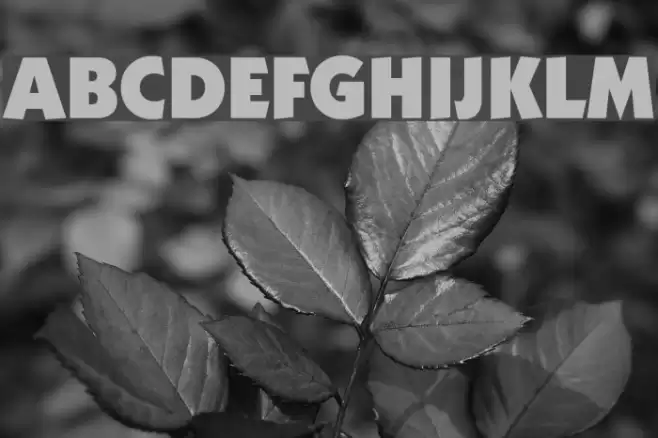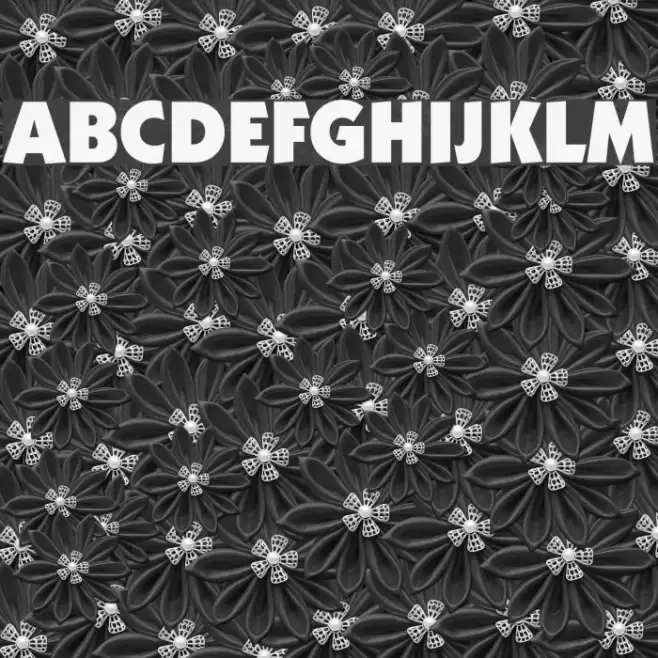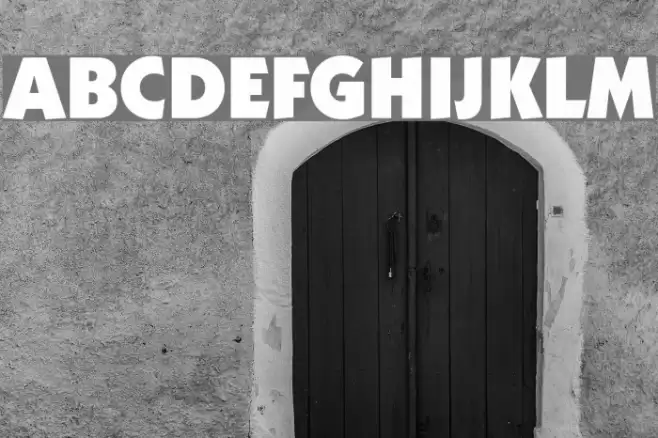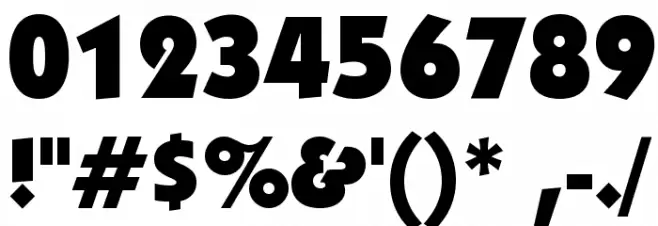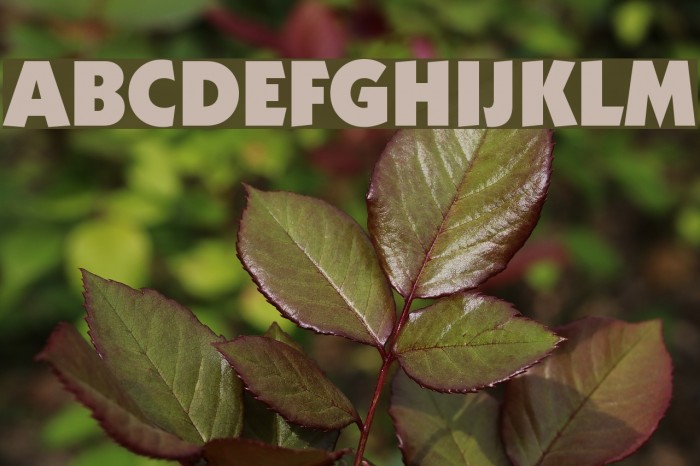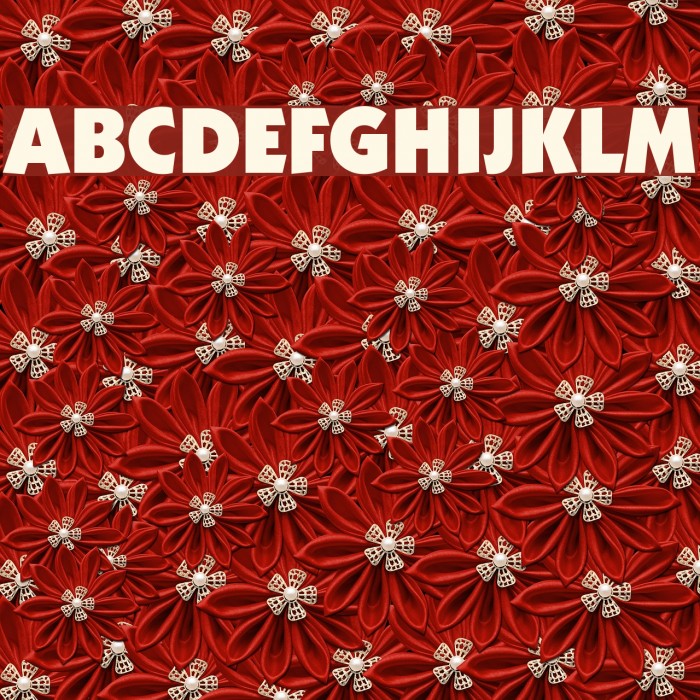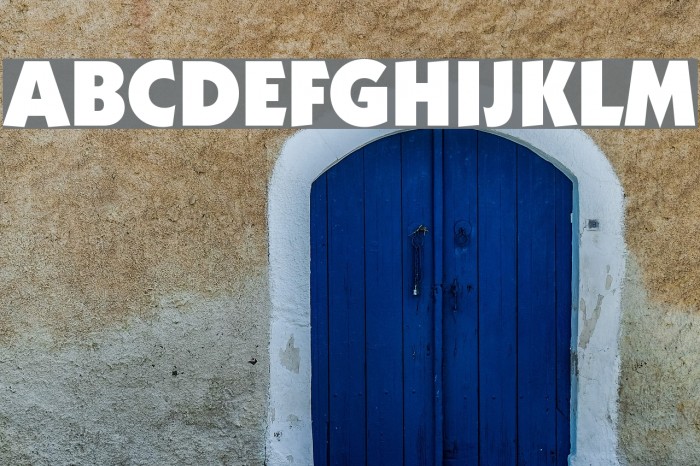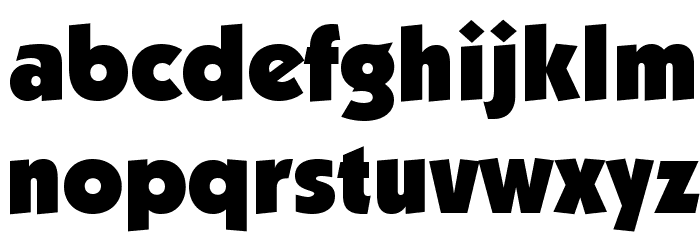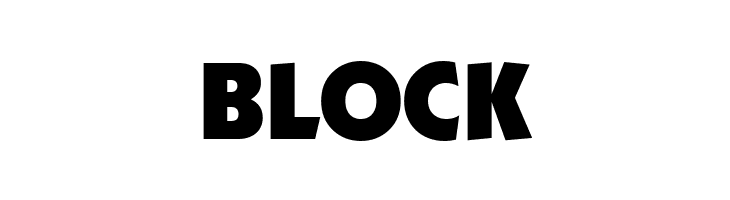
Strippenzieher Ultra Font
Strippenzieher Ultra Description
This bold and impactful font features thick, uniform strokes that create a strong visual presence. The characters are designed with a slight curvature, giving them a playful yet assertive appearance. The uppercase and lowercase letters maintain a consistent weight, ensuring readability and balance. The numerals and special characters are crafted with the same boldness, making them stand out effectively. This font is ideal for making statements, with its high contrast and solid structure.
A bold, high-contrast font with thick, uniform strokes and a playful yet assertive style from Formal fonts.
- Proposed Projects: Ideal for headlines, posters, branding, and advertising where a strong, impactful message is needed.